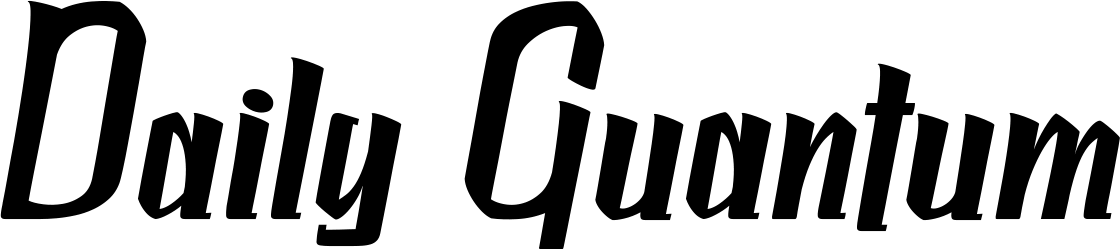
Daily Quantum Font
Designed byDcoxy - Greg Medina
Nostalgia and groove radiate from retro fonts and this one does the same to the reader. Daily Quantum contains bold characters that have a vintage and disco look to them. You can use Daily Quantum in retro movie and book titles, channel banners, vintage disco party flyers, and fashion blogs.